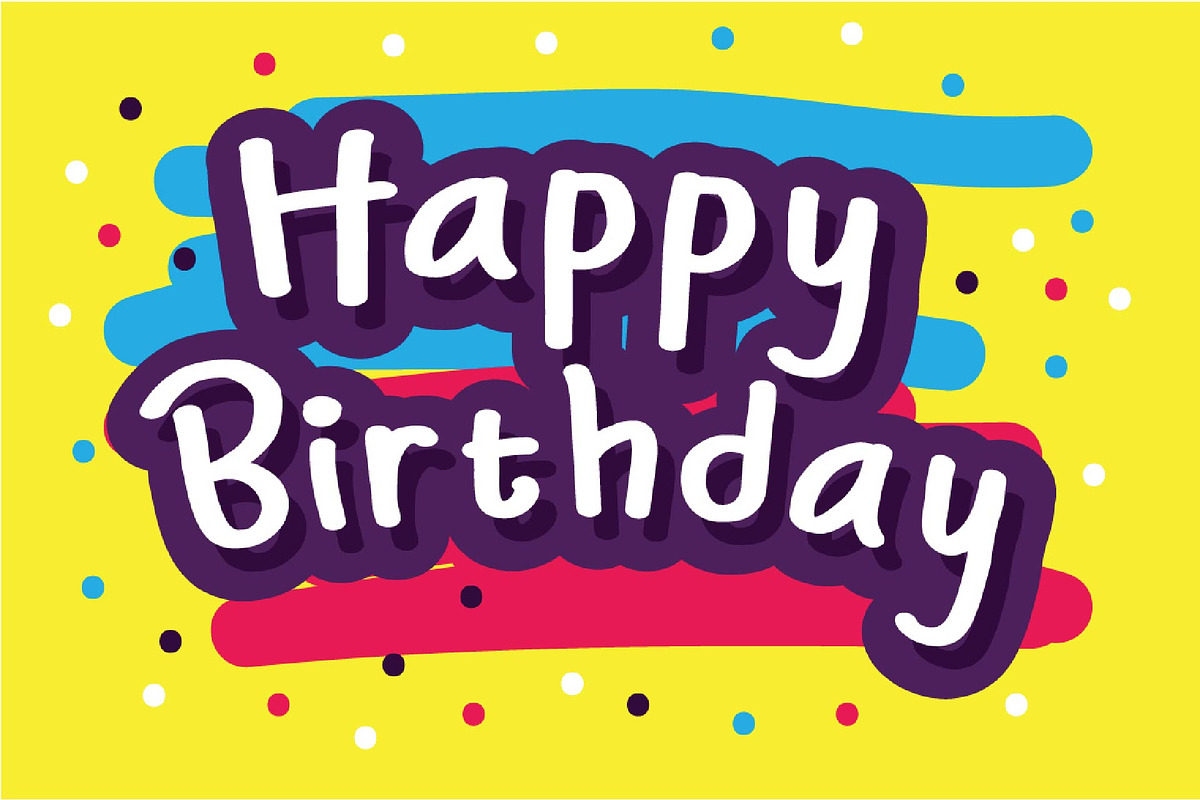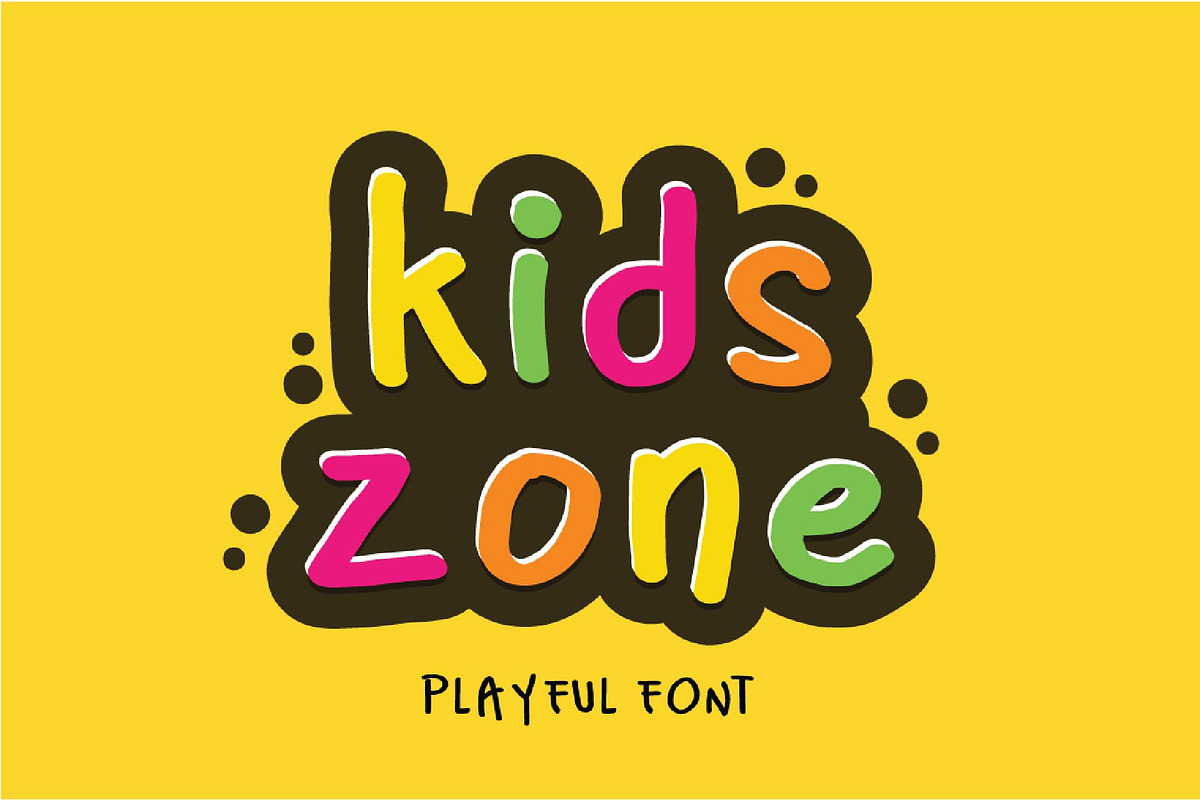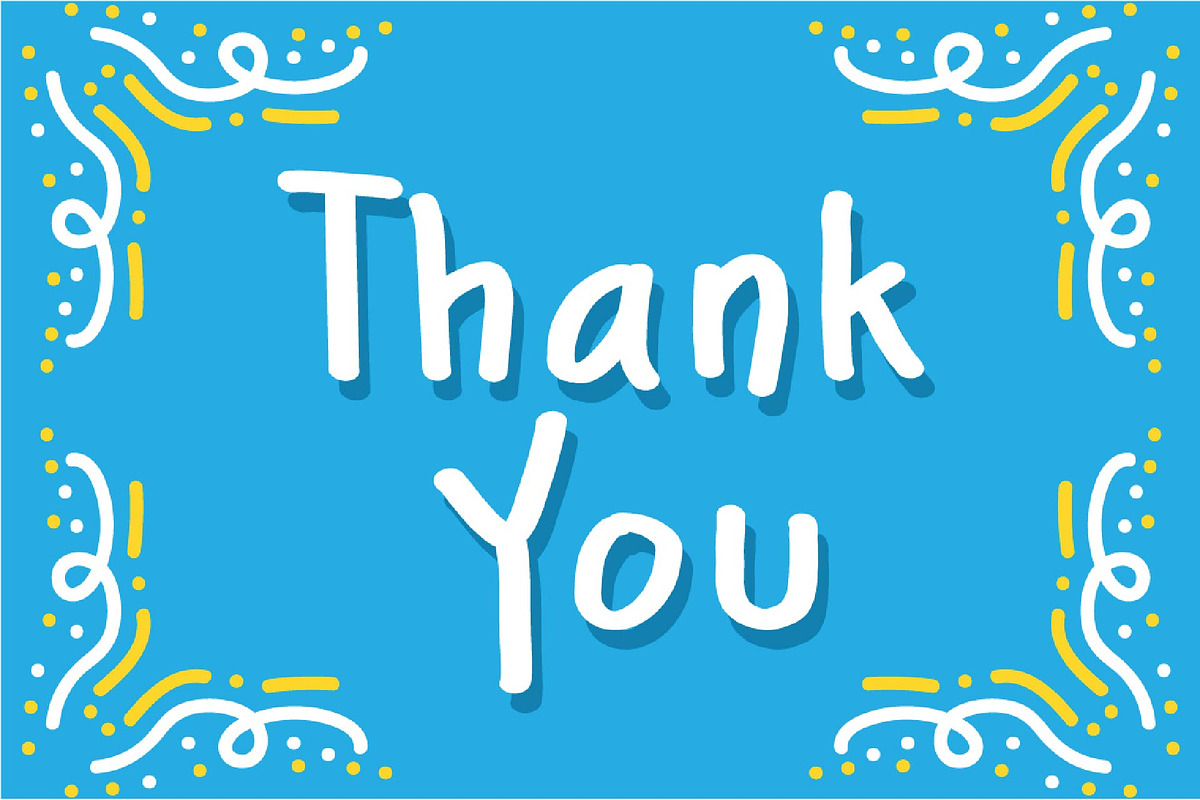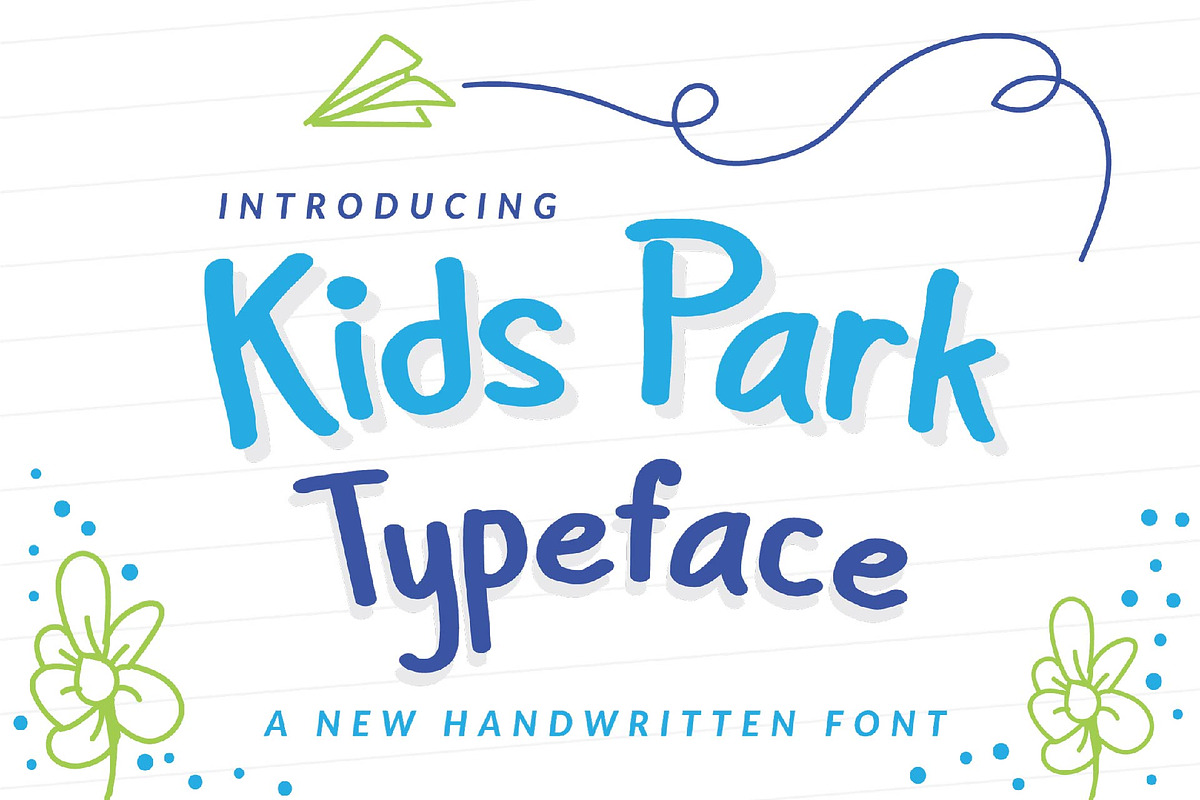
Kids Park - Playful Font
Kids Park - Playful Font a New Handwritten Typeface
So beautiful on invitation like greeting cards, branding materials, business cards, quotes, posters, and more!
Kids Park - Playful Font by KAZ by IanMikraz Studio fits naturally into Branding, posters, packaging, typography.